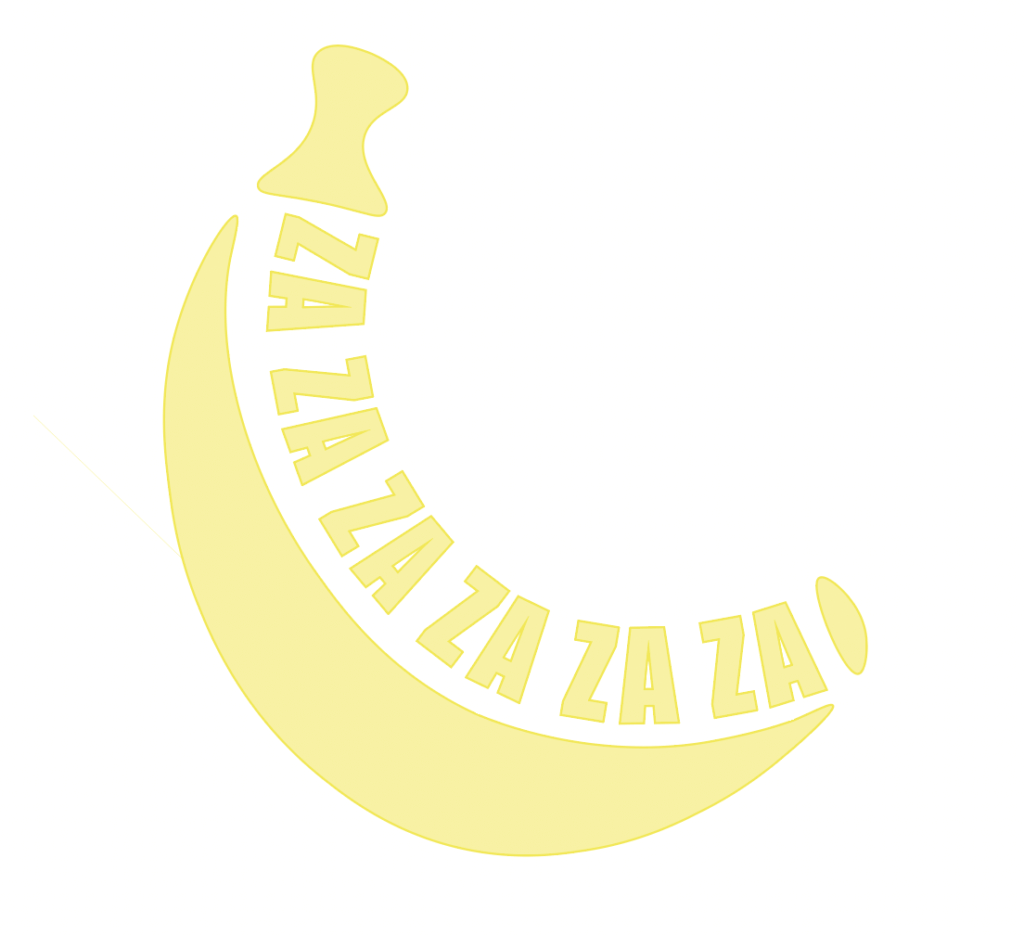
Banana Logo
Design ideas and design process
First logo design – starting point
At the beginning of my design process watching tutorials and exploring different levels of design were extremely helpful. However, the first of my designs that were created was not carefully thought about. Upon opening Illustrator, I went straight into it, without any inspiration at all. I mainly wanted to test out the certain tools that I had learned through watching tutorials and apply them to my design. The first tool learnt was called ‘type on path’. This was the tool that I had used for most of my three logos, and it helped them to have a clean and professional look. Despite my hatred for my first design, it really helped me to develop and think carefully about what I wanted to design next.
Second logo design – inspiration was used
My second design was a lot more successful and thought out. It was inspired by the KA drinks logo because the colours and typefaces that it had used really stuck out and caught my attention. This was the effect that I felt all logos needed to have. They needed to be eye-catching and interest the viewer when looking at it. This helped to develop my understanding even further and made my second design a more successful one. Instead of using the ‘type on path tool’, I used illustrations and large type instead. I drew a simple sun design and large type to create a simple and minimalistic design. However, despite its minimalism it still makes an impact.
Logo 3 – first stage, crescent moon drawing
Logo 3 – stage 2, adding text and dimension
Logo 3 – stage 3, adding stem and banana elements
Logo 3 – stage 4, adding outline to create more dimension and finalisation
My final design was definitely my favourite. Initially I wanted to design and draw a crescent moon logo, in contrast to my second one. However, while designing, it miraculously turned into a banana, due to elements that changed its appearance. Instead of starting my logo again, I wanted to just go with it and see how my design would progress further. Even though it didn’t go how I originally planned, I definitely think it was my most effective and interesting creation.
Final logo design – most developed design
Design resources and articles
Inspiration for logo 2
My design resources were mainly an article that I had found, and the KA drinks logo that I used for inspiration. The KA drinks were fairly simple, the designers had used a bright colour for the main text and a tropical background to make the name stand out. The sense of hierarchy and importance helped me to develop my own designs and think about the different levels within my design.
On the other hand, the article helped me to understand the significance of a logo and the meaning of what it stands for. The article I had used: https://sproutsocial.com/insights/how-to-design-a-logo/ was written by Michelle Grano. Her article stated so many different aspects and features that really made me think about my own design. From identifying what a logo is, to mentioning different fonts, design tools, emblems, symbols and so much more, her article was thorough in describing what logos are and the effects they can make on people. Not only did I gain knowledge and understating from this, but I applied the same comprehension to my own designs.
Learning across the module
Throughout the module I have definitely learned and achieved a wide range of knowledge. I have gained much more confidence and become a lot more comfortable with using the various different softwares. Compared to my quiz from last term, I have improved my skills a consistent amount and applied them to all my projects, not just this module. Software skills such as the ‘type on path’ tool, ‘selection’ tool, ‘shape builder’ tool and ‘type’ tool have all helped me to broaden my understanding of certain effects and also how to use them effectively.
My design skills have also improved vastly. From knowing how to develop certain designs and have a level of significance behind them. I have learnt that research really helps when going through the design process. It has helped to inspire me and spark ideas when I didn’t have any, and also helped me to understand the meanings behind certain designs as well as how they can affect people when they look at them. As a whole, both my software skills and my design skills have improved considerably, and I will continue to use the knowledge I have gained throughout my various other projects.